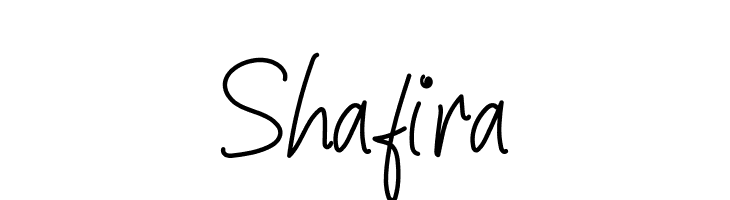
An elegant script font with flowing, cursive style and intricate flourishes.
A graceful script font with fluid, cursive strokes and decorative flourishes.
A lively, handwritten font with fluid, continuous strokes.
An elegant script font with flowing, cursive letterforms and artistic flourishes.
A dynamic script font with elegant, flowing strokes and modern flair.
A flowing, cursive script font with elegant, handwritten characteristics.